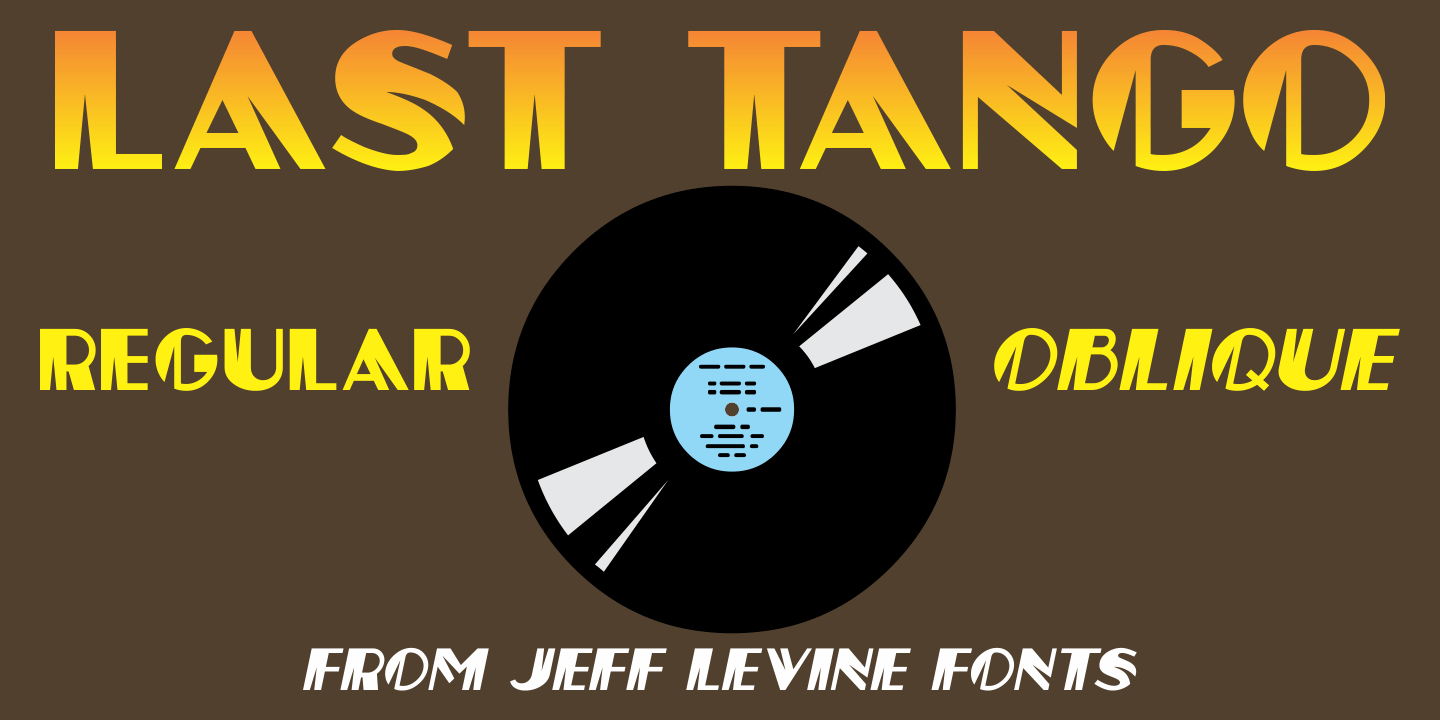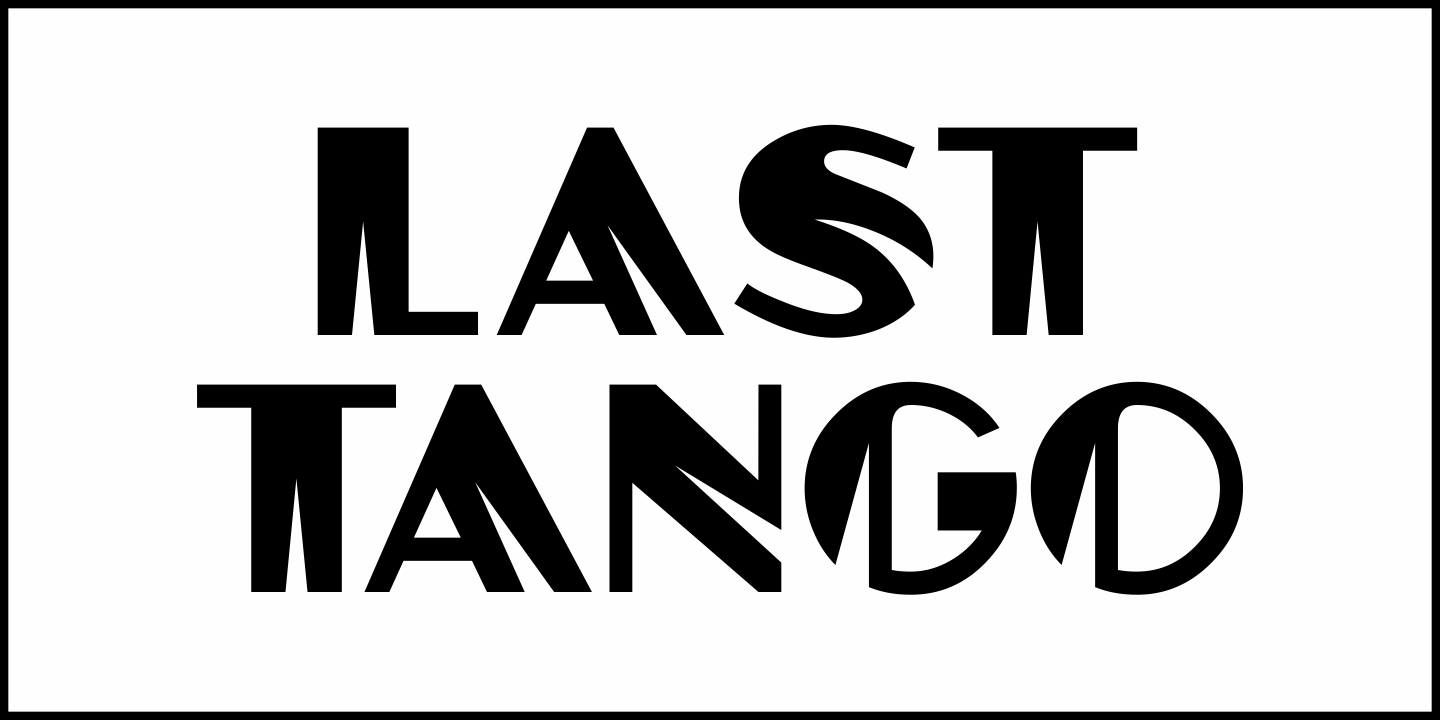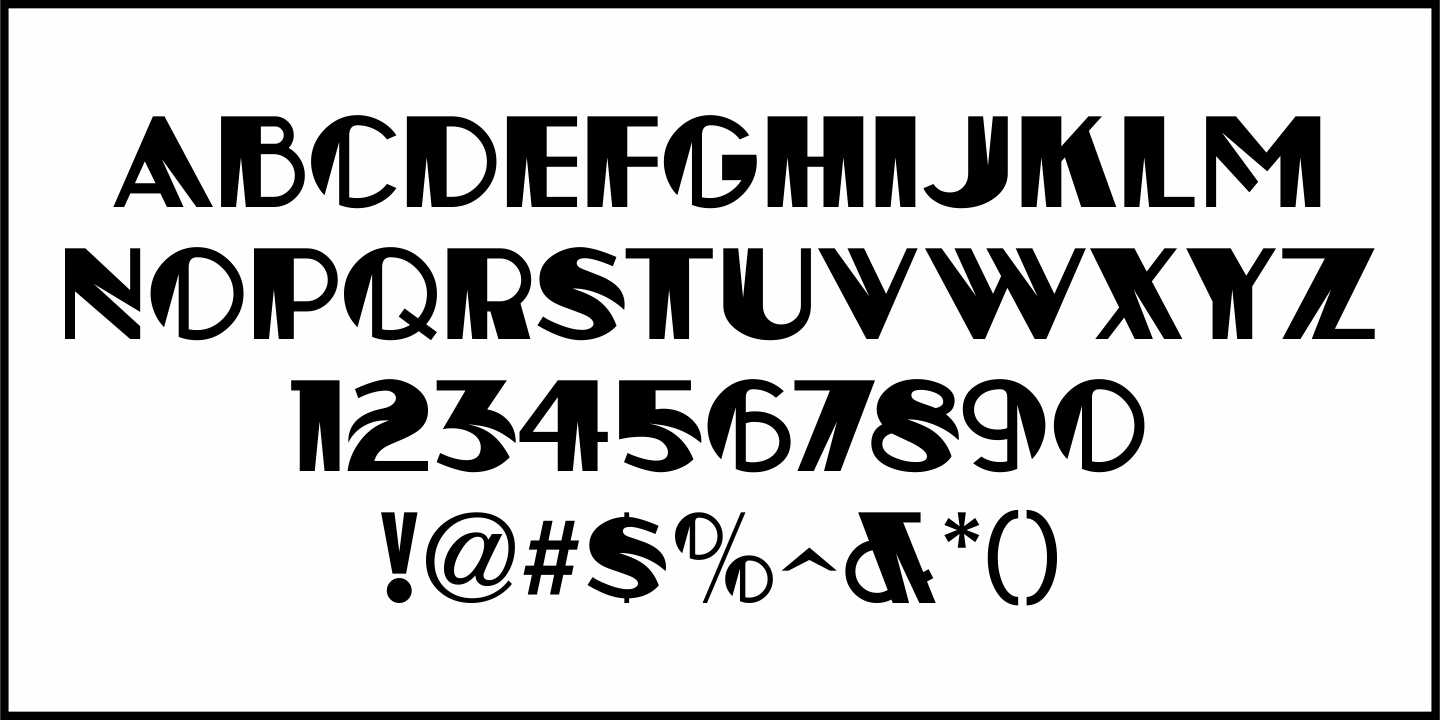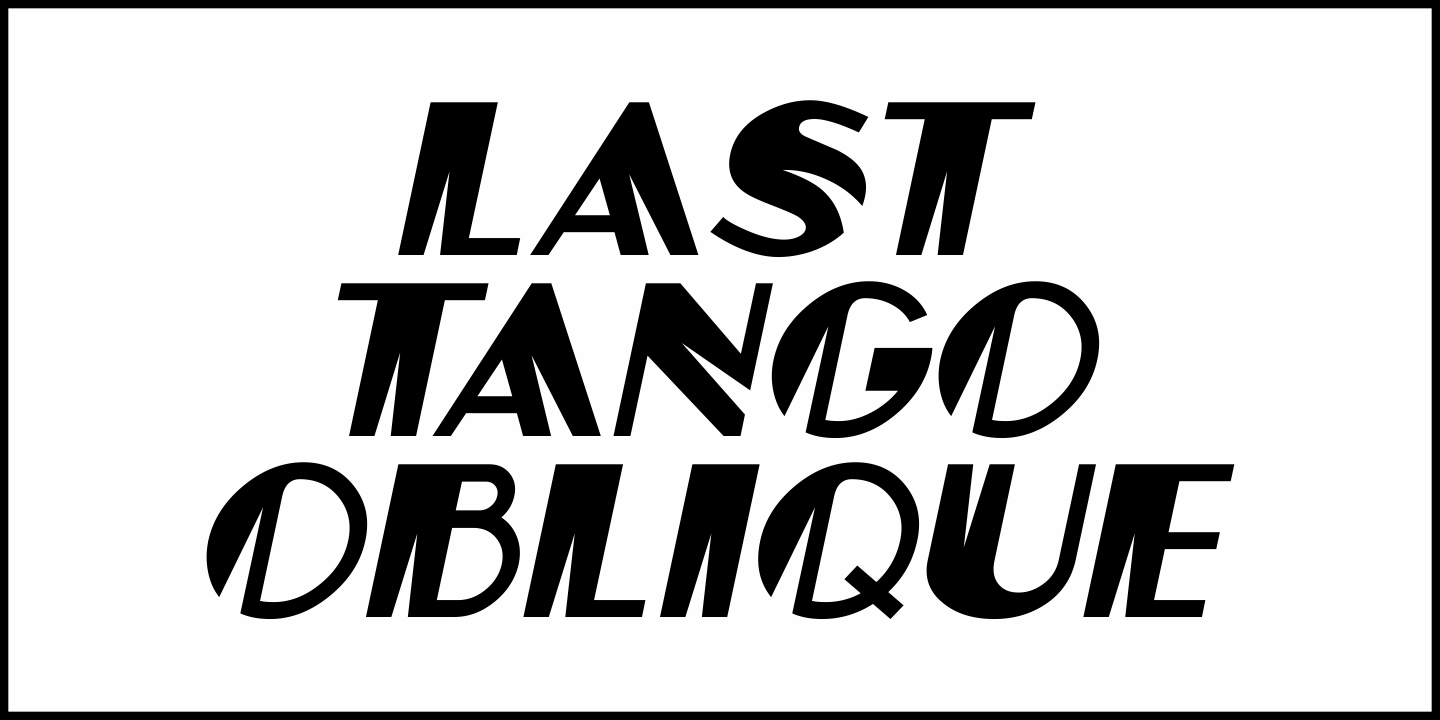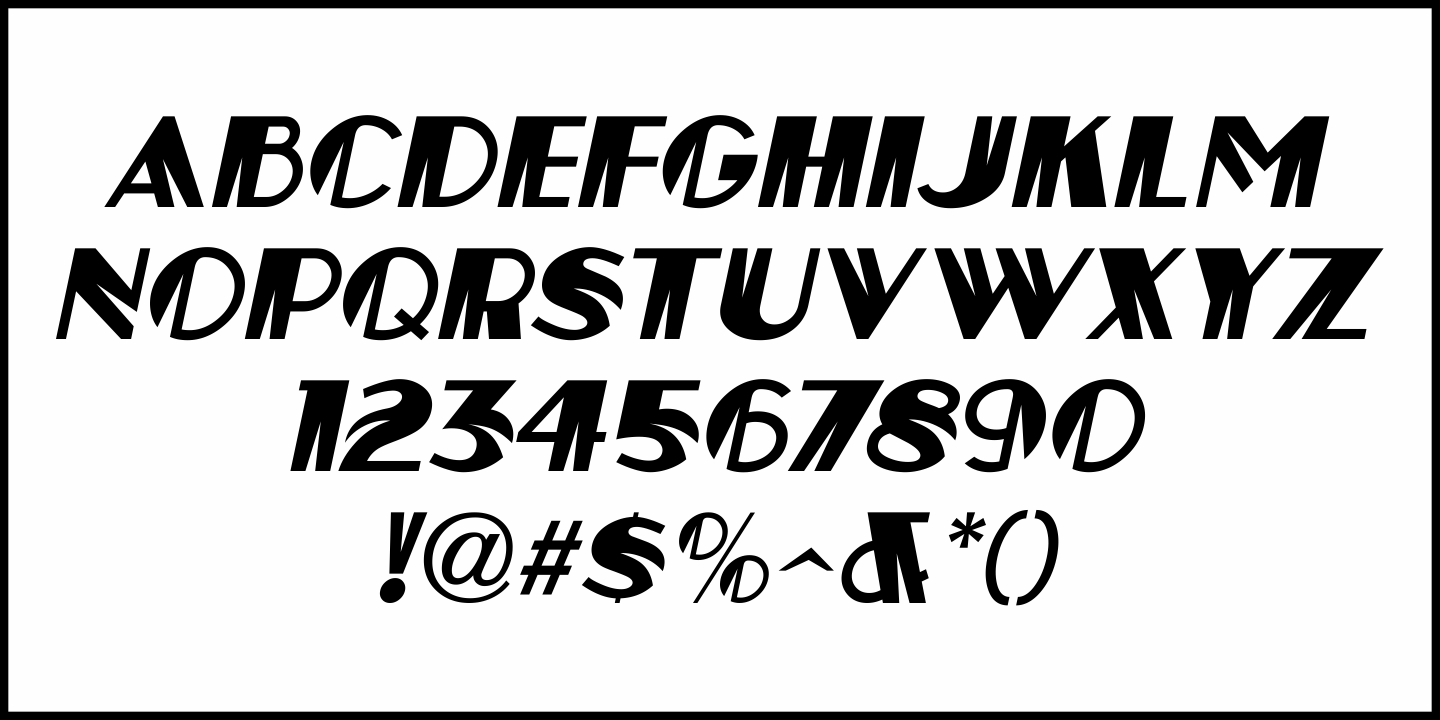
Last Tango
The hand lettered title found on the 1924 sheet music for the tango “Sentimiento Gaucho” (“Sentimental Gaucho”) offered a different take on the thick-and-thin lettering that permeated the late 1920s through the Art Deco age.
A ‘slash’ or ‘swipe’ is cut through the characters (similar to “Directa JNL” – another take on this type of design).
Last Tango JNL is the digital recreation of this novelty lettering and is available in both regular and oblique versions.